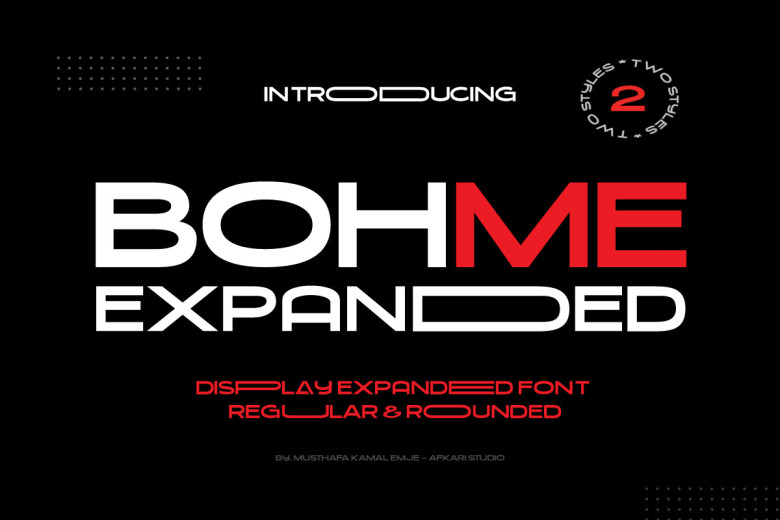
Bohme Expanded Font
Bohme Expanded is an exciting modern and stylish display Sans serif font, creating a new standard in typography. Bohme’s bold yet expansive design makes it the ideal solution for those seeking an option that effortlessly merges modern fashion with traditional elegance.
Bohme Expanded font makes an artistic statement! Bohme Expanded’s bold letters convey strength, making it the ideal choice for projects that must make an unforgettable first impression on viewers.
Bohme Expanded makes an excellent addition to posters, headings, logos, headings or any other artistic endeavor that requires striking images! Bohme Expanded makes for the ideal solution in creative endeavors!
Bohme Expanded Sans Serif Font